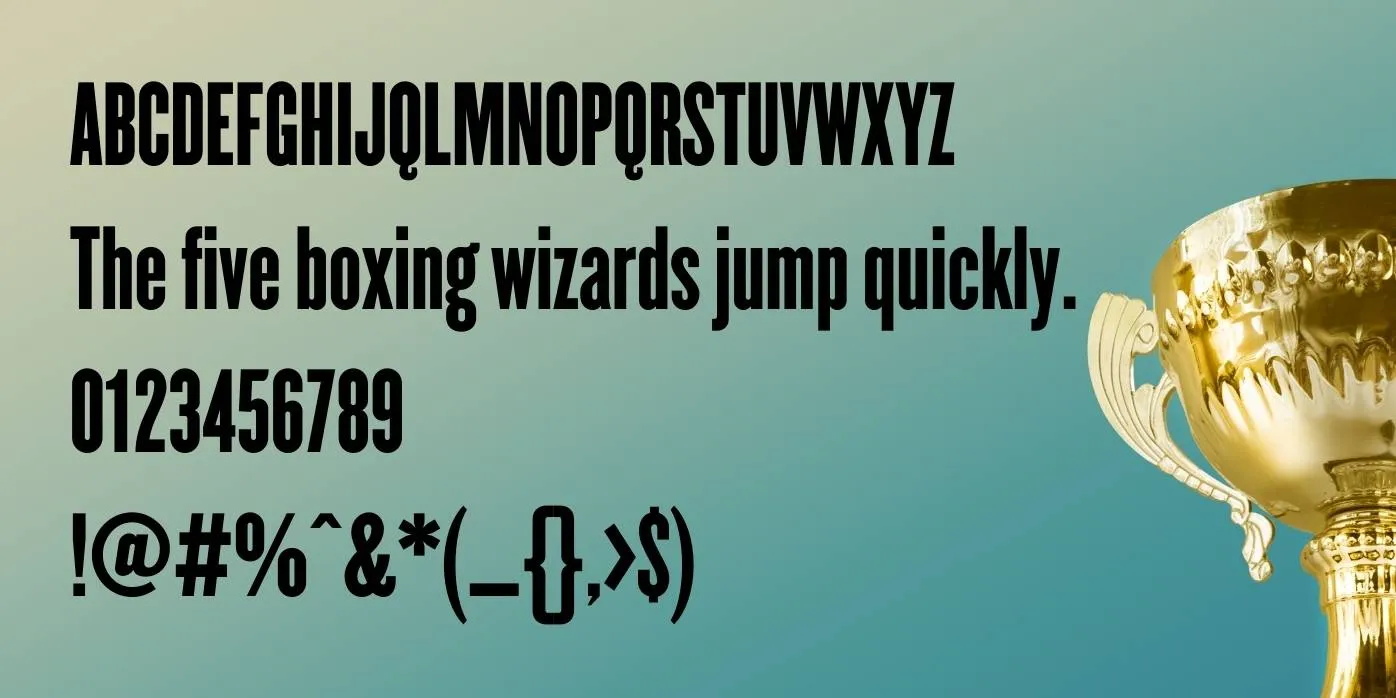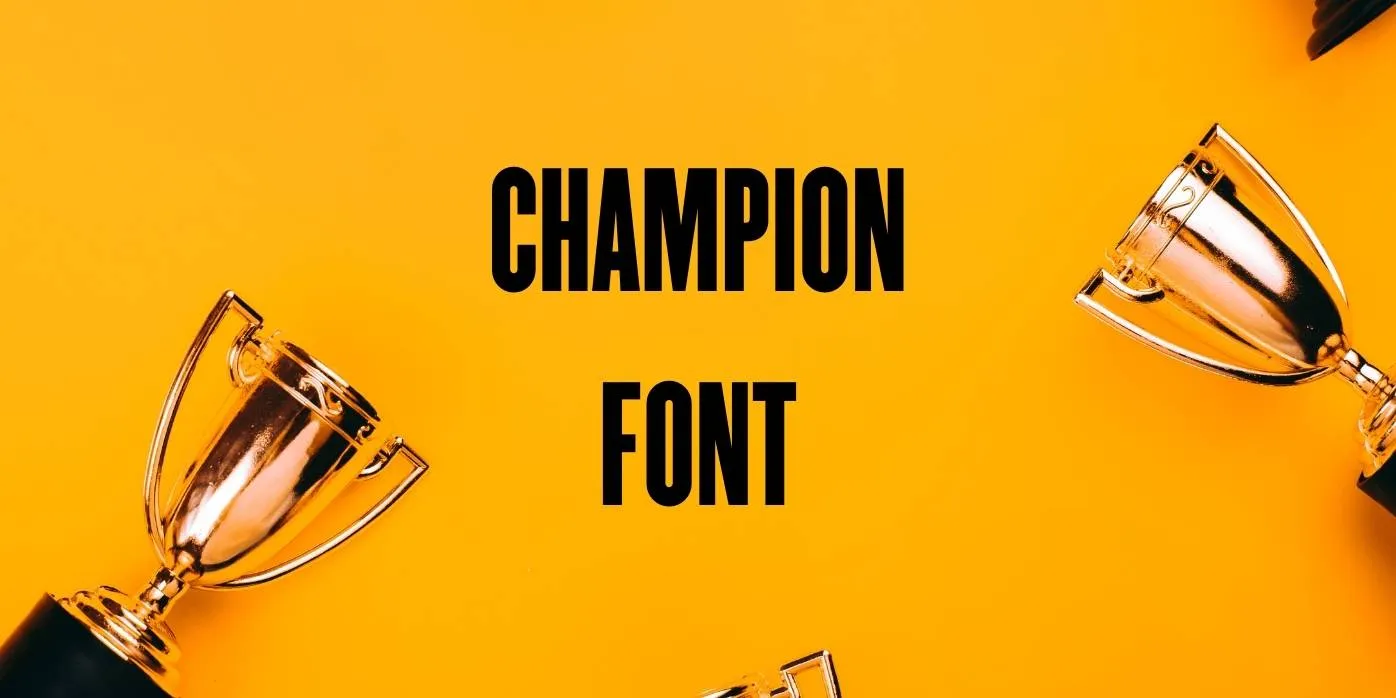
Champion Font
The champion font is the most beautiful general and high-standard typeface that belongs to a sans serif typeface family. The designers of this typeface are Jason Smith, Emanuela Conidi. The font family is Truetype outlines and OpenType Layout as well. It has Uppercase and Lowercase Letters, Numbers and Numerals, and special symbols also.
It has a beautiful condensed look that can fit any kind of design. The font family has the ability to support many international languages. It can fulfill all the designer’s requirements. It can provide the best performance with the pairing of Maven Pro Font.
You can make so many amazing designs with the combination of this typeface as well.